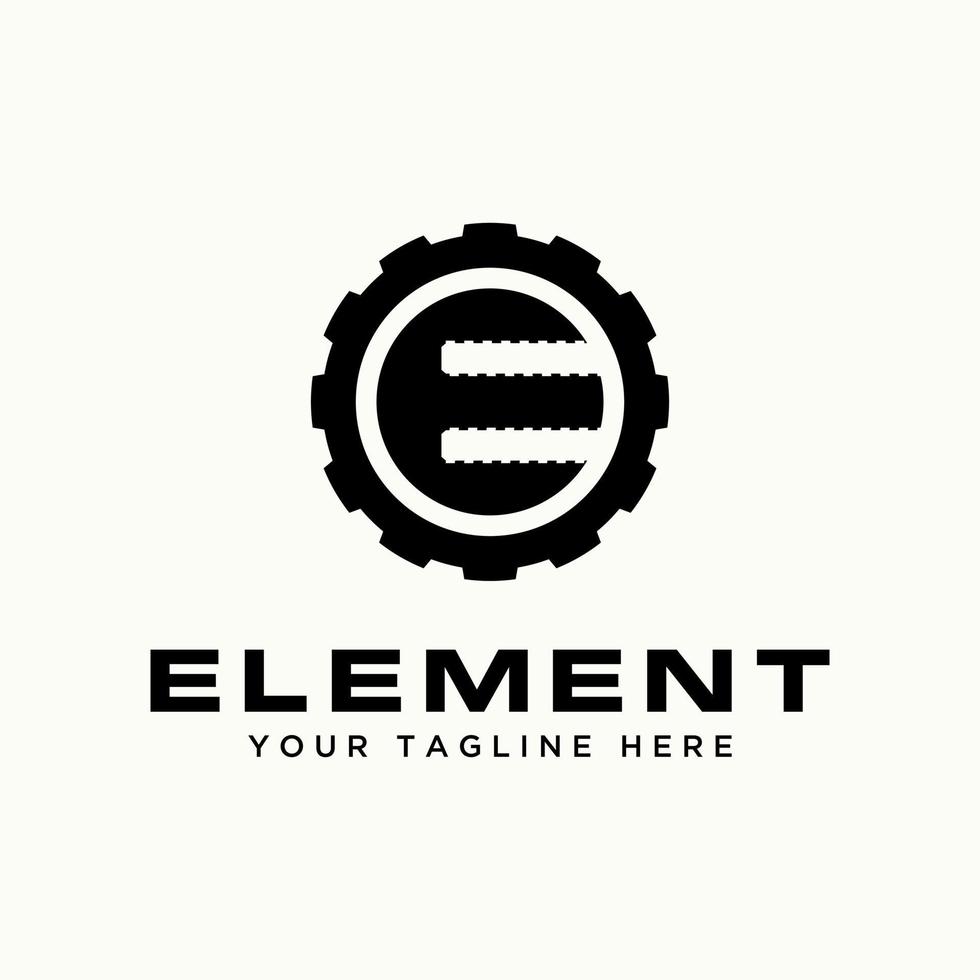
Simple and unique letter or word E font like bolt holes with gear outside shape image graphic icon logo design abstract concept vector stock. Can be used as symbol related to initial or mechanical Pro Vector